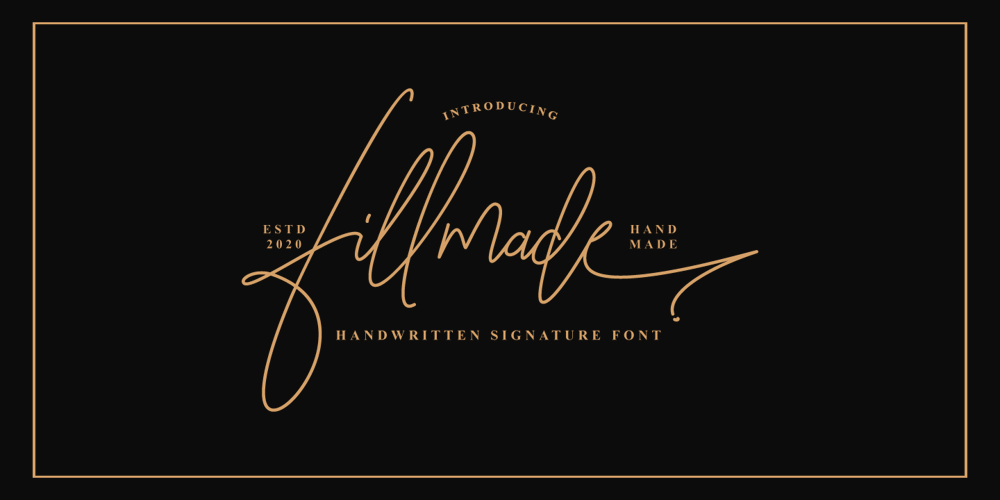
Fillmade Signature Font Family was designed by Ferdiansyah and published by ijemrockart. Fillmade Signature contains 1 styles and family package options. Fillmade Signature is a handwritten signature typeface coming with more than 389 stylistic ligatures. Its classy energetic look makes it the perfect fit for feminine logos, printed quotes, invitation cards, social media headers, product packaging and a lot more!Files Include :Fillmade Signature.otfMultilanguage SupportTo enable the OpenType Stylistic alternates, you need a program that supports OpenType features such as Adobe Illustrator CS, Adobe Indesign & CorelDraw X6-X7.There are additional ways to access alternates, using Character Map (Windows), Nexus Font (Windows), Font Book (Mac) or a software program such as PopChar (for Windows and Mac).